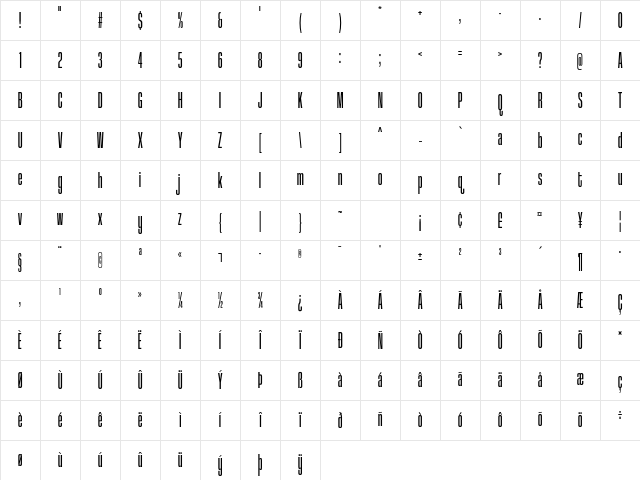
Coolvetica Crammed Regular Free Font
Coolvetica Crammed Regular
Coolvetica Family
Design Context for Coolvetica
Coolvetica is a composed and adaptable typeface that performs quietly and consistently across a wide range of design contexts.